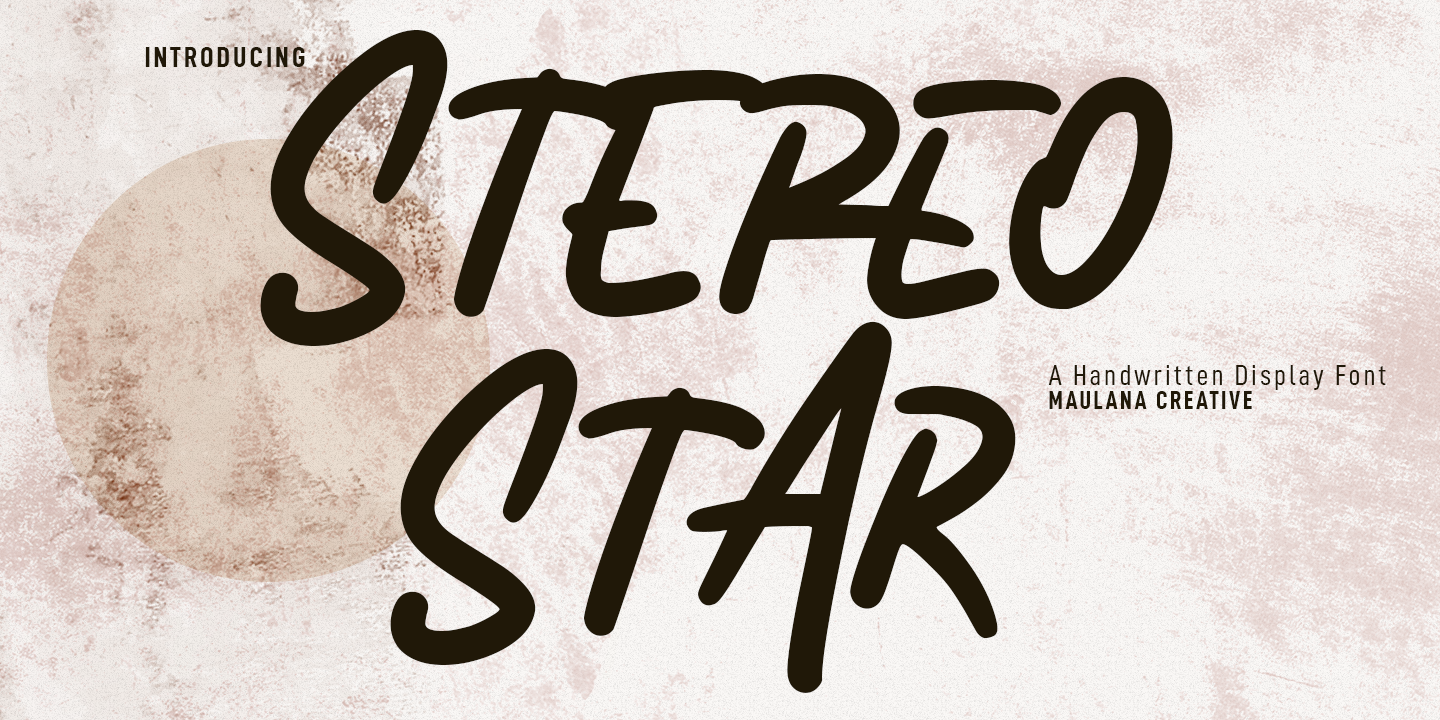
Stereo Star Font is perfect for music album covers, recording studio branding, radio station promotions, concert venue signage, audio equipment advertising, music festival headlines, sound system company logos, DJ performance graphics, entertainment industry marketing, and professional audio product packaging. Its dynamic audio character makes it ideal for projects requiring musical energy and sound industry authenticity.
What makes Stereo Star Font exciting is its electrifying fusion of musical rhythm and stellar performance with bold letterforms and dynamic characteristics that capture the essence of professional audio excellence and entertainment industry glamour. The font features rhythmic stroke patterns, star-inspired details, and energetic character construction that create authentic music atmosphere and performance appeal. Its dynamic personality brings excitement and professional credibility to contemporary designs while maintaining the clarity essential for entertainment communications and audio industry presentations. The carefully crafted musical elements ensure visual impact while preserving the distinctive character that embodies the essence of sound excellence and musical stardom.
Stereo Star Font comes in multiple performance variations including Regular, Bold, Light, Outline, and Stage styles. Each family member amplifies the distinctive musical character while offering comprehensive flexibility for entertainment typography and audio brand system development. The complete font family includes alternate characters, music symbols, and performance decorative elements that provide extensive tools for creating immersive musical design experiences and authentic entertainment brand storytelling.
Whether you're developing music brands, audio companies, or entertainment projects, Stereo Star Font Free Download provides the dynamic energy needed to communicate with music enthusiasts and audio professionals who appreciate sound quality and musical performance excellence. The font's rhythmic appeal resonates with musicians, audio engineers, and entertainment industry professionals seeking authentic musical credibility and performance authenticity. Its comprehensive character set includes music symbols and audio marks, making it perfect for creating complete entertainment brand systems and memorable musical storytelling across diverse audio applications and performance-focused design projects that celebrate musical artistry and sound technology excellence.